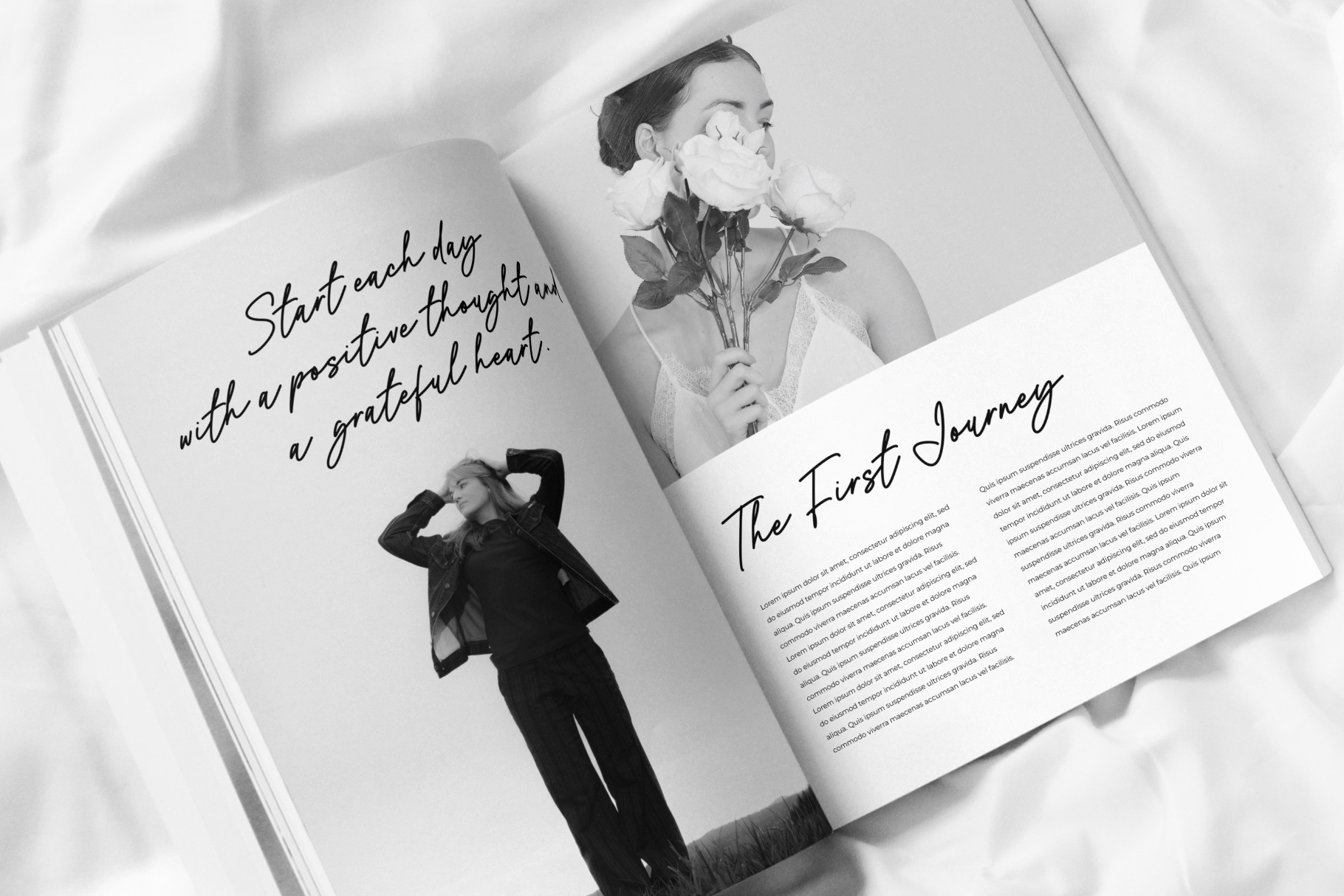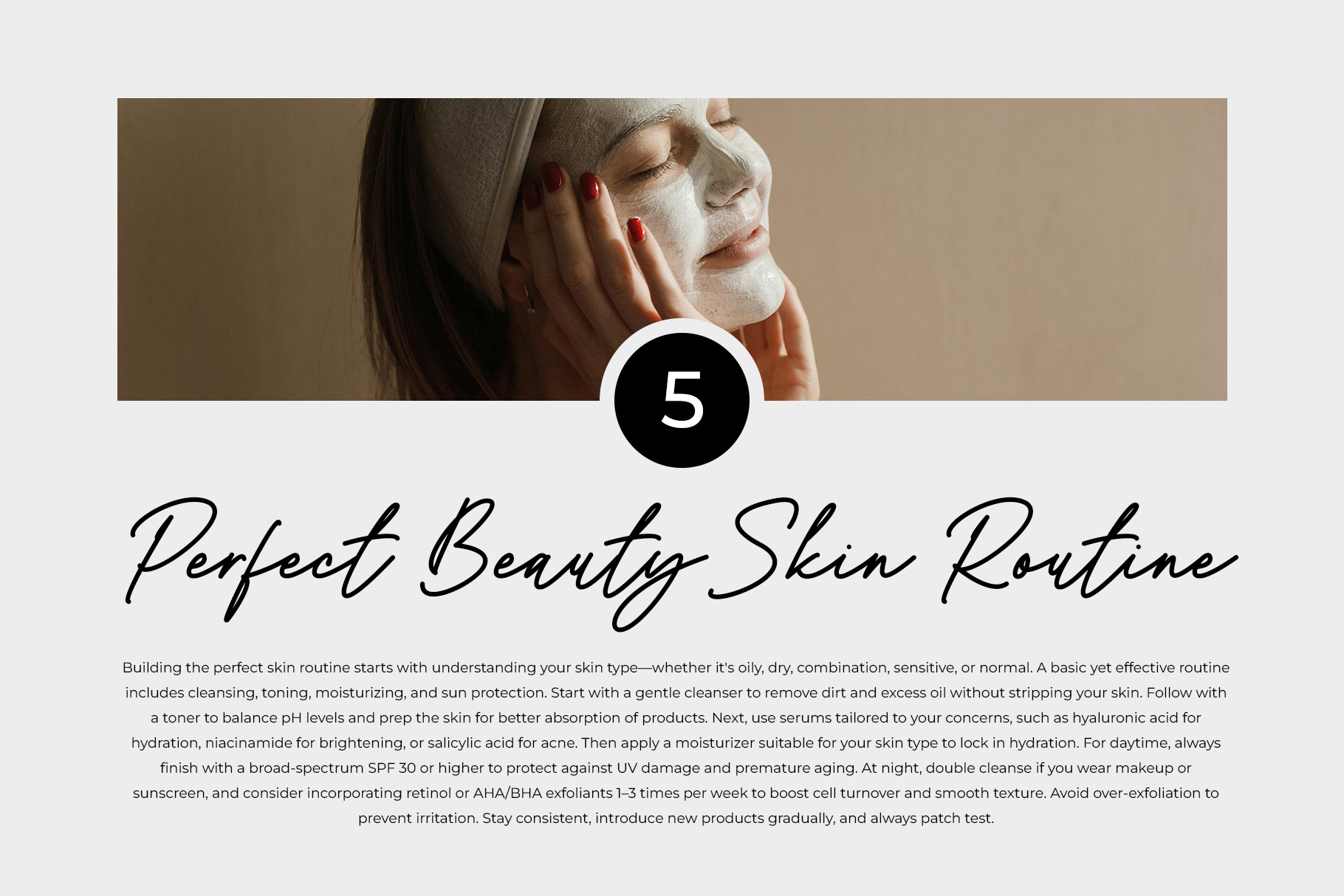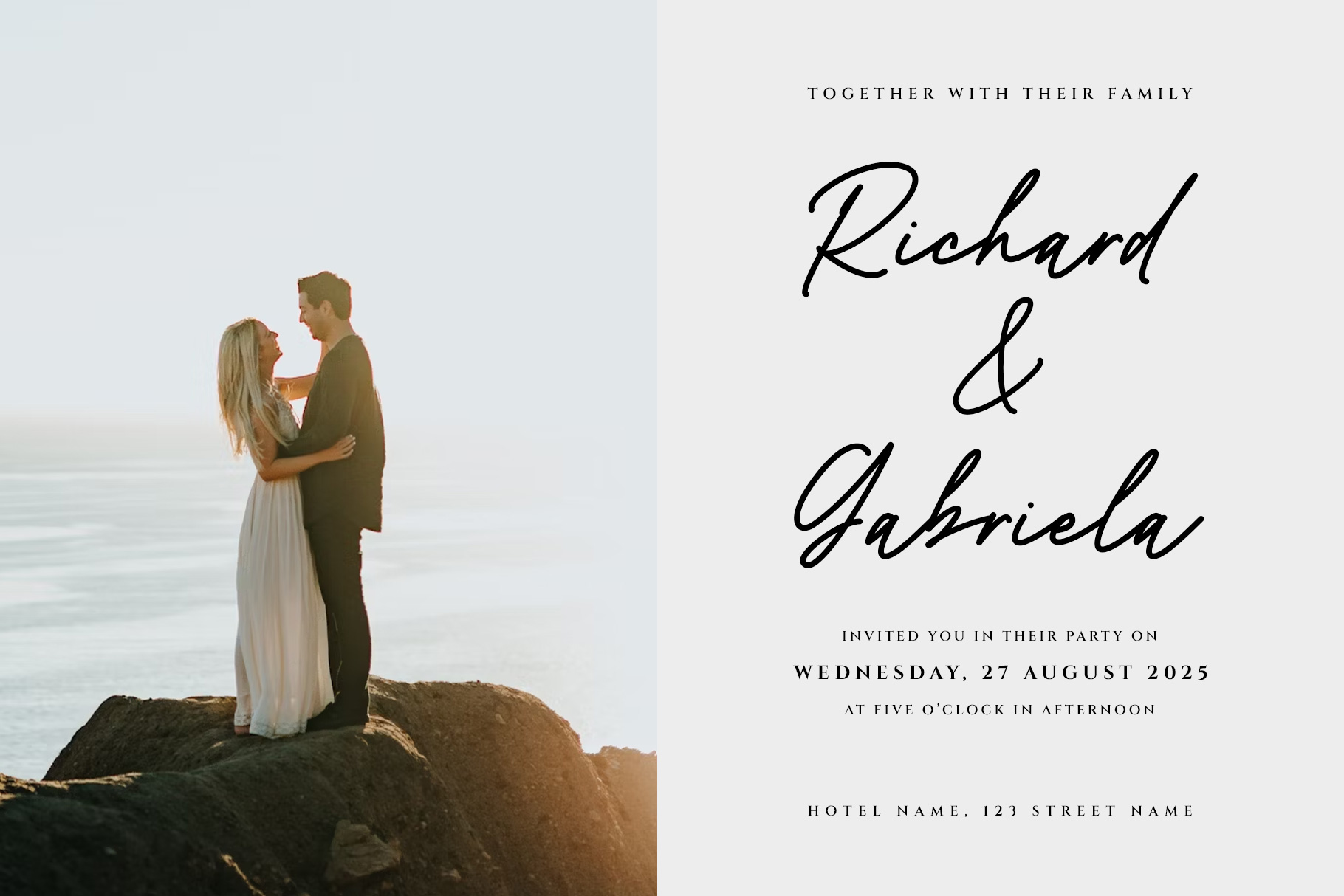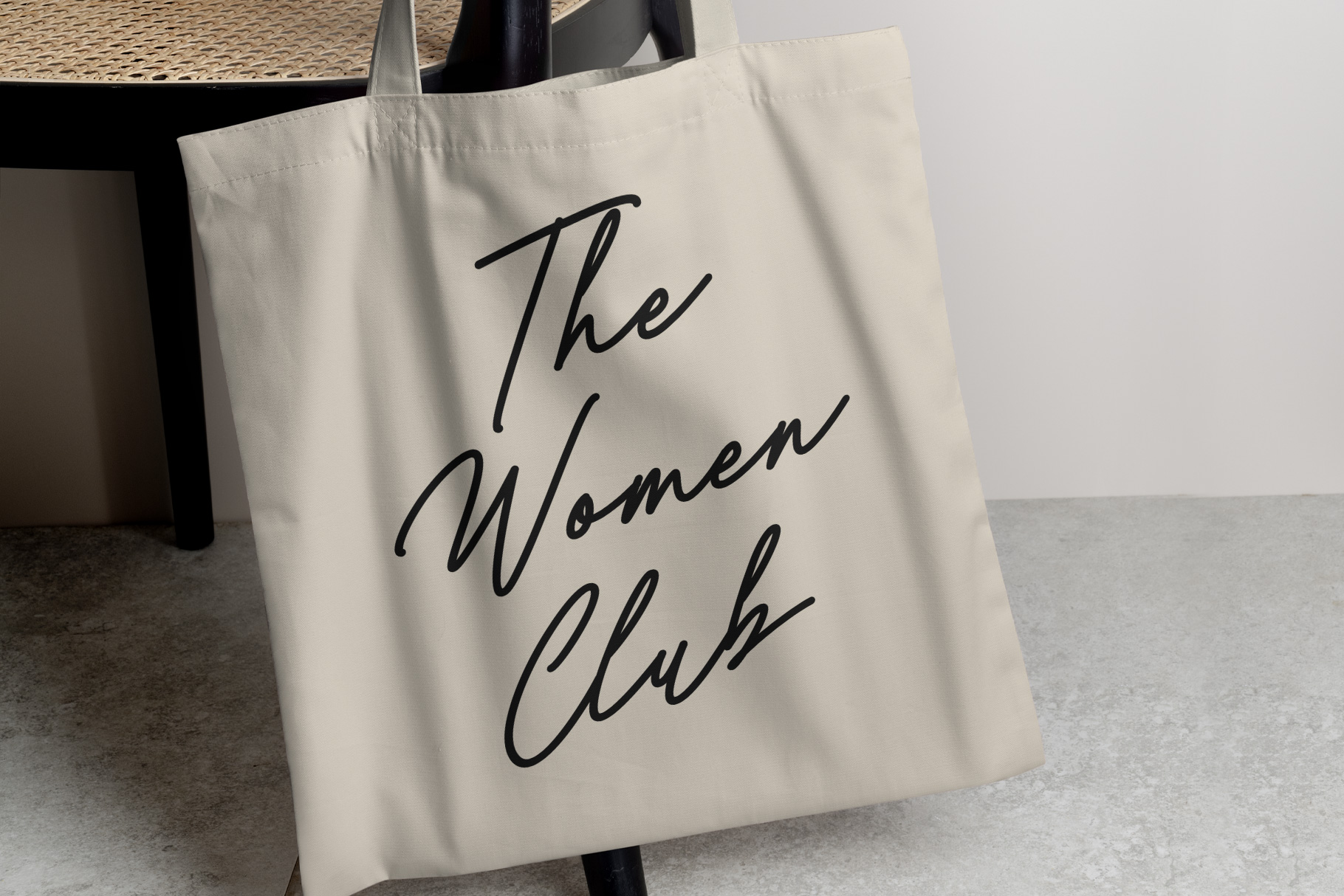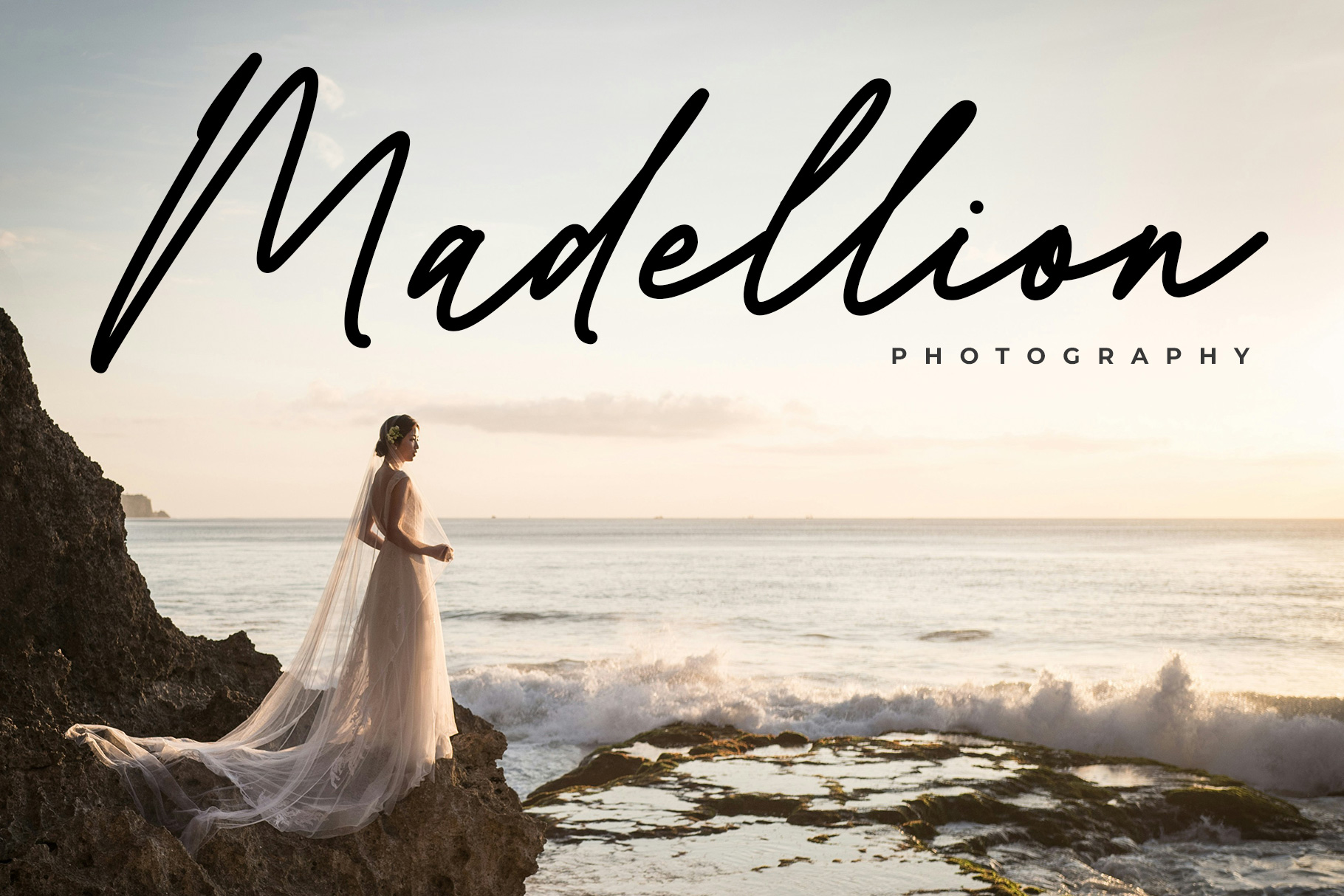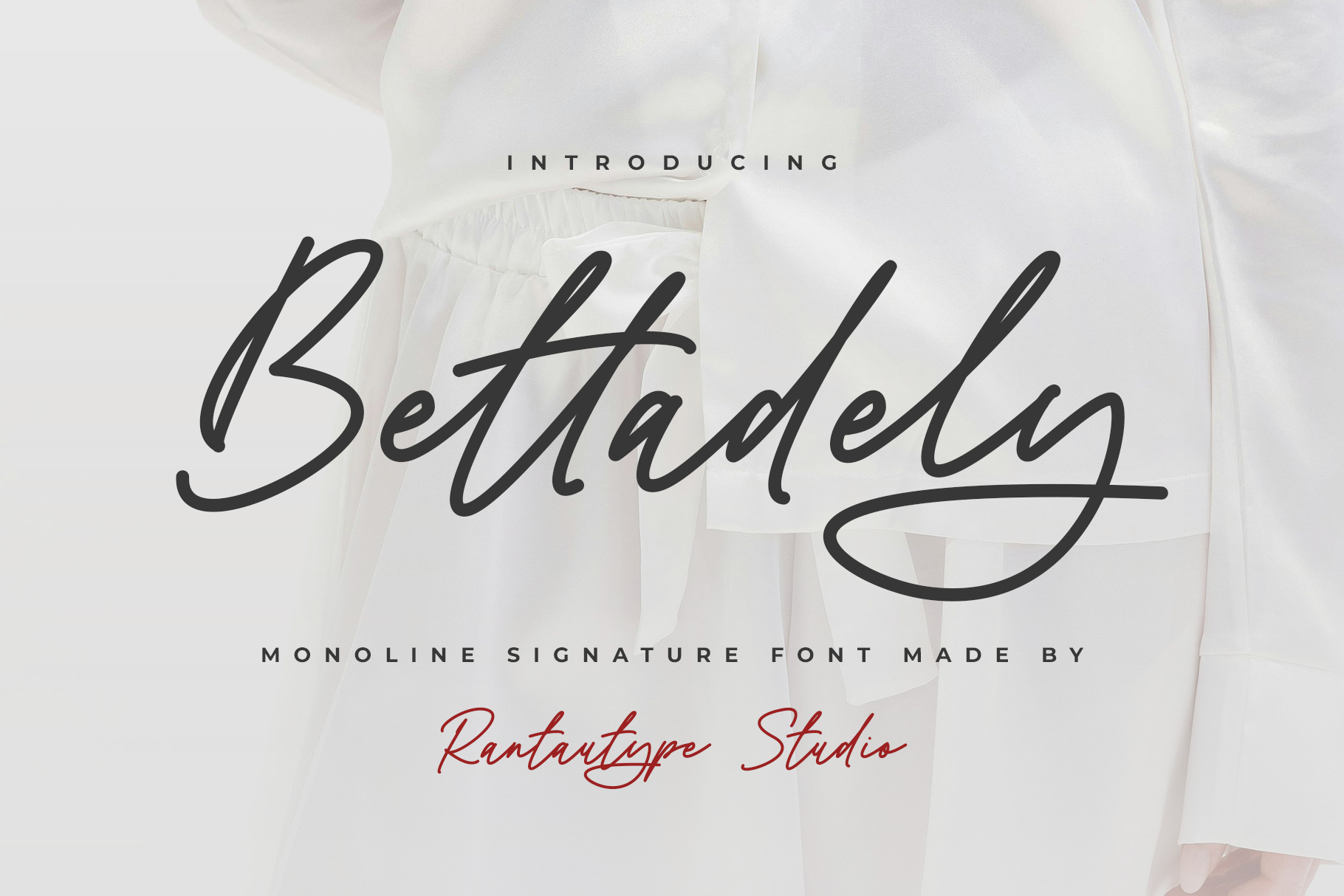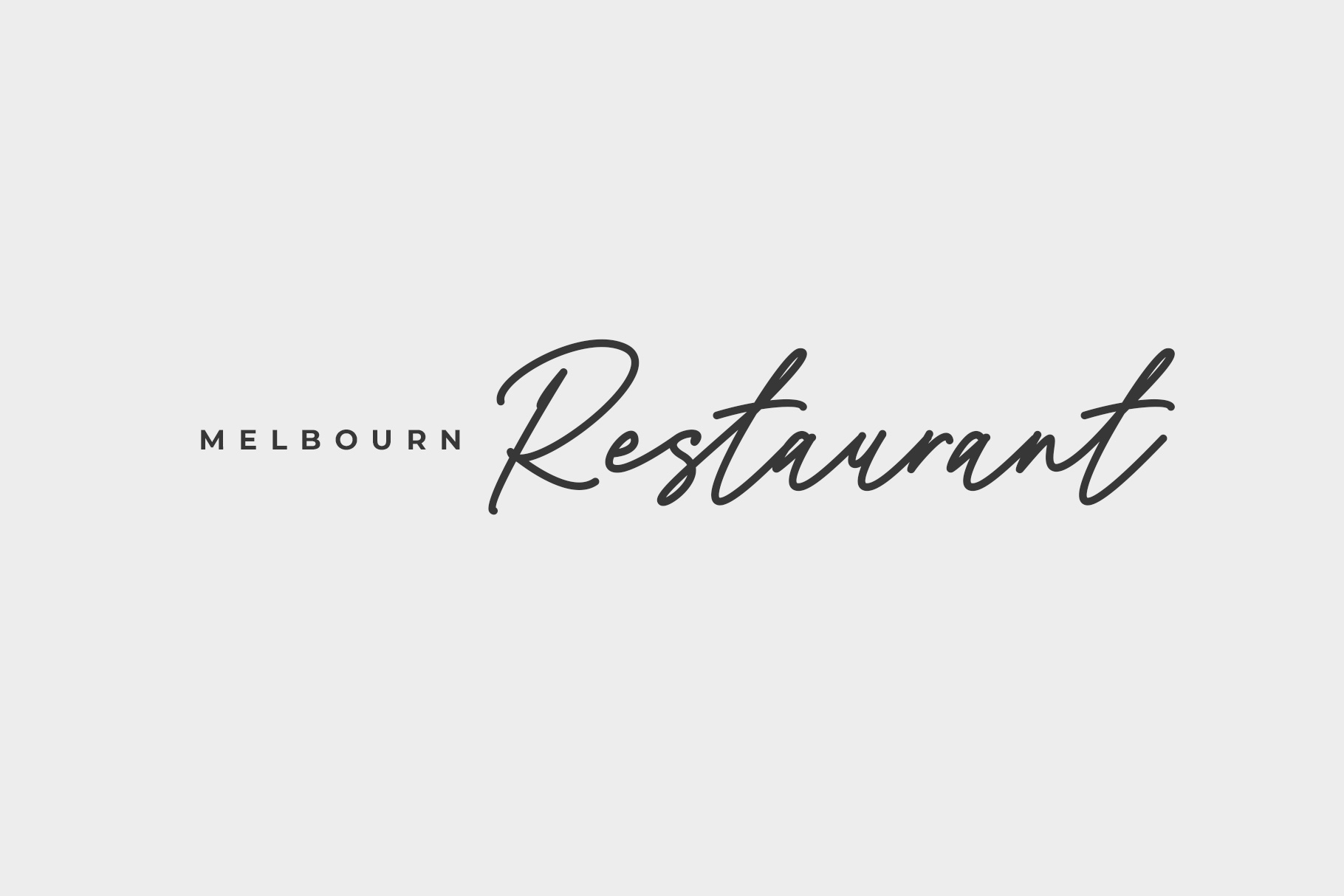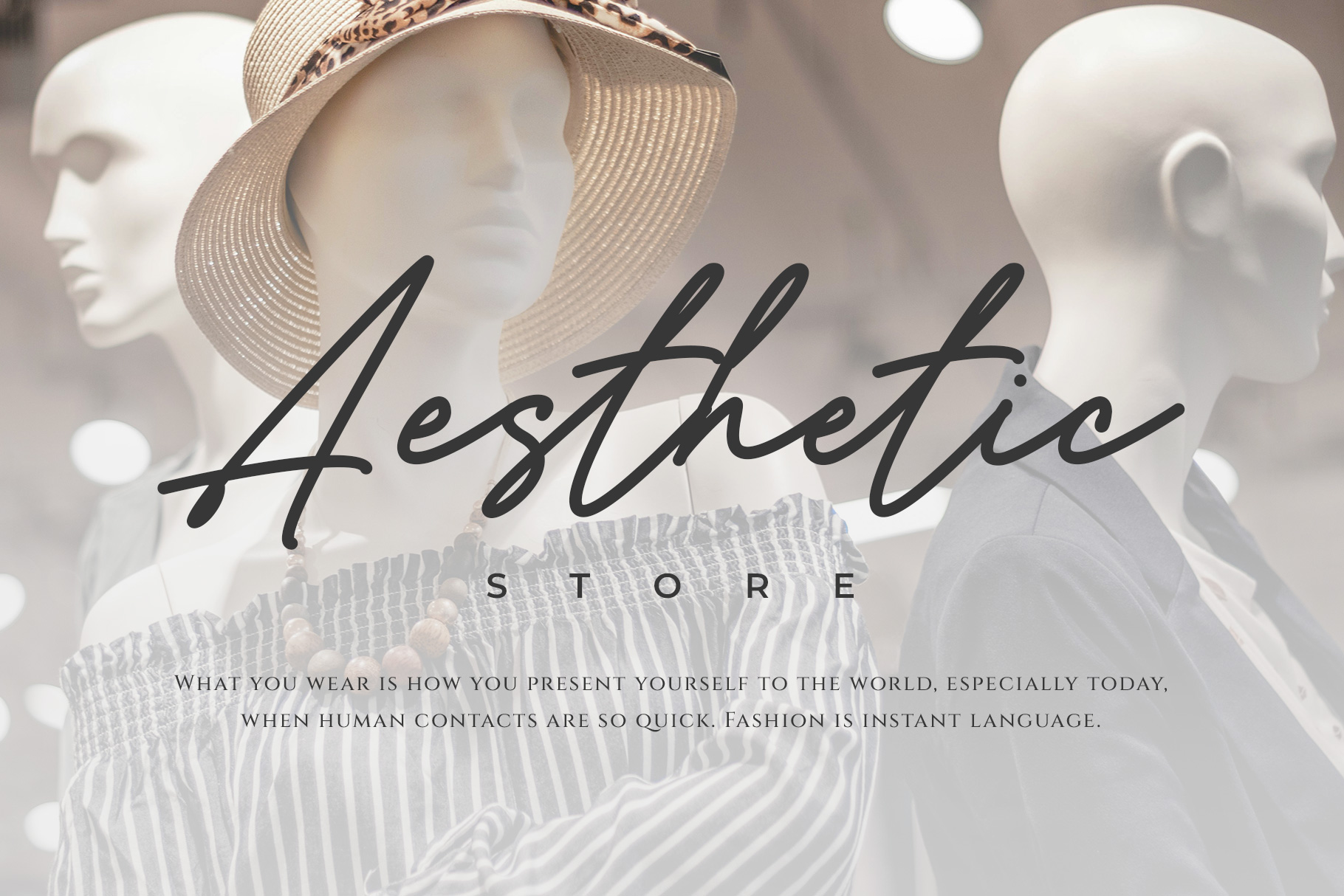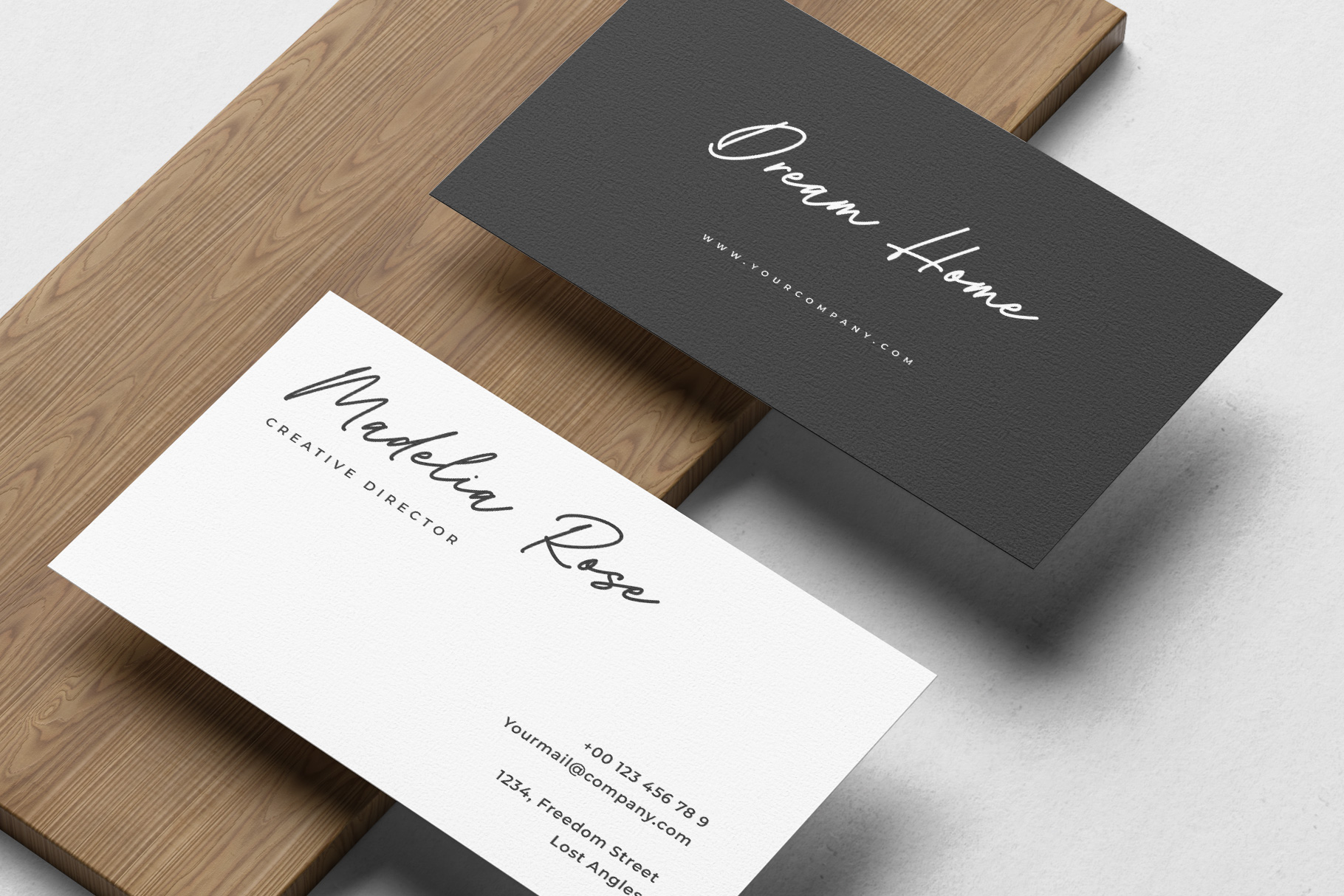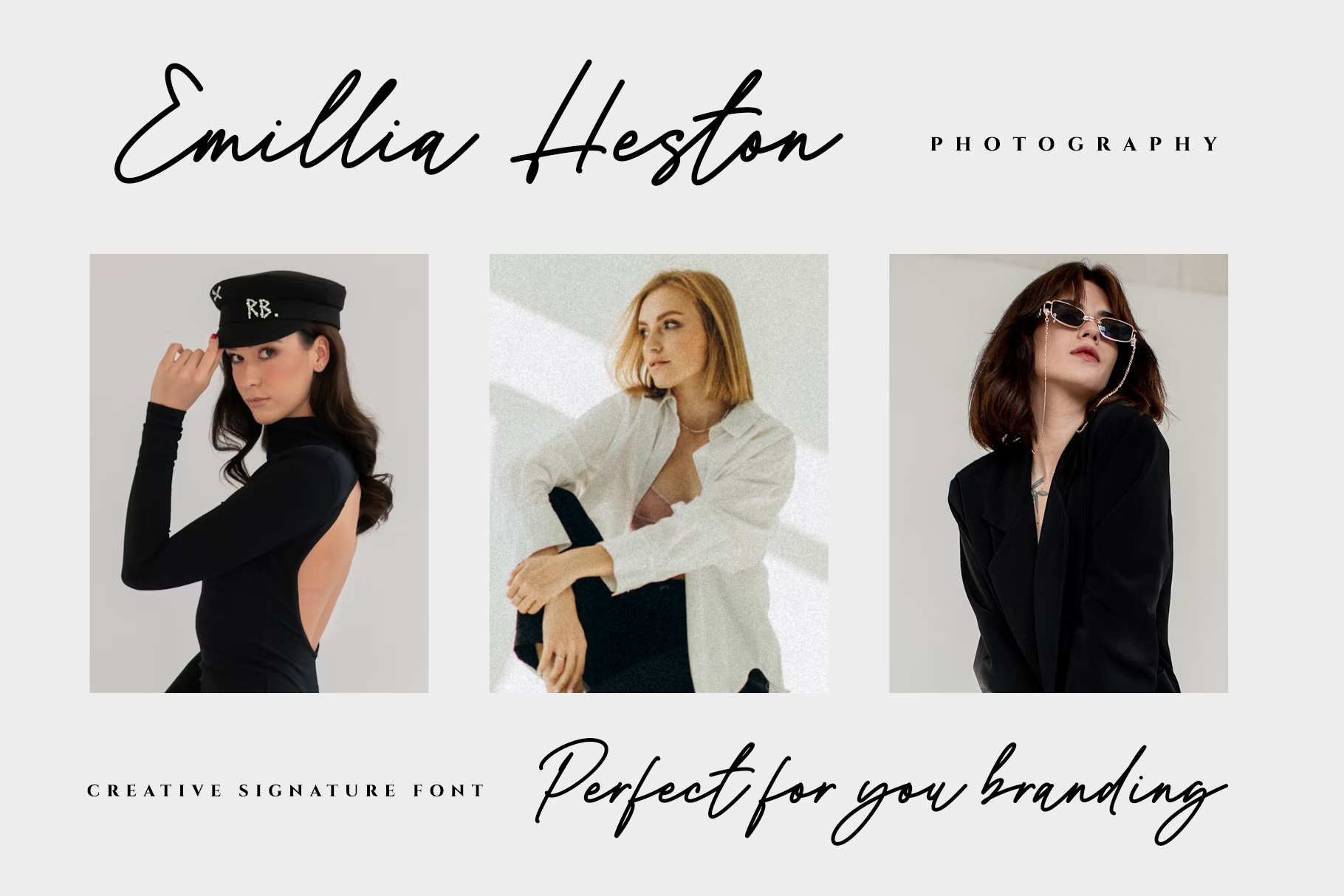
Bettadely Monoline Signature Font
Bettadely is monoline signature font embrace grace and sophisticated. Bettadely come with single store with trendy style to make you design project stand out!
Bettadely is a perfectly choice for any creative endeavor, creating, modern, lifestyle design such as logotype, title, cover, branding, invitations, wedding designs, display and magazine, social media posts, advertisements, printed quotes, product packaging, corporate brand, product designs, labels, photography, watermarks, special events and any other project with elegant touch.